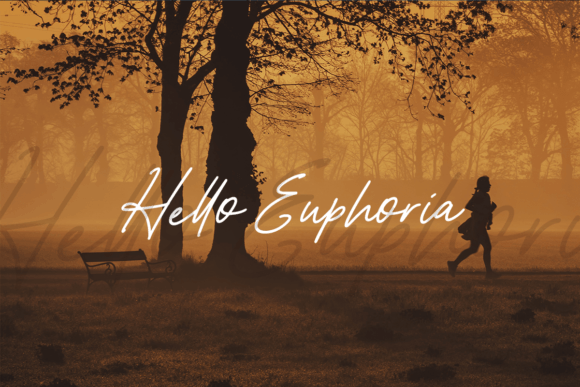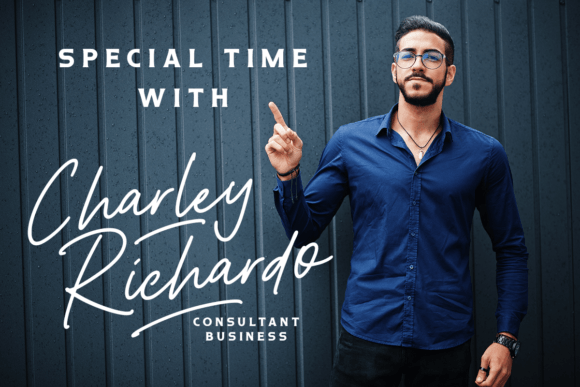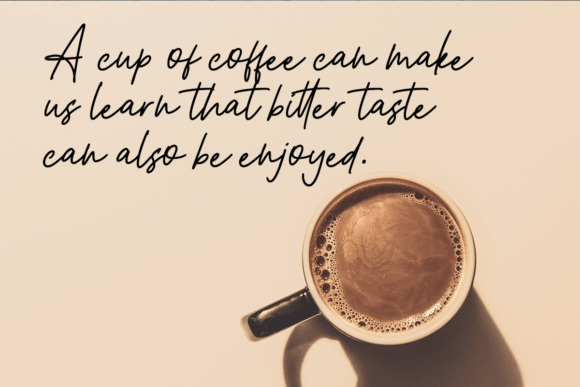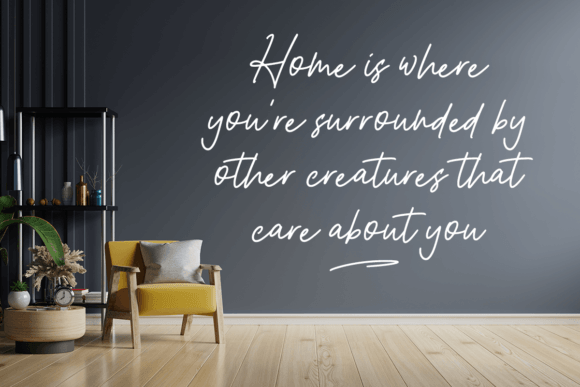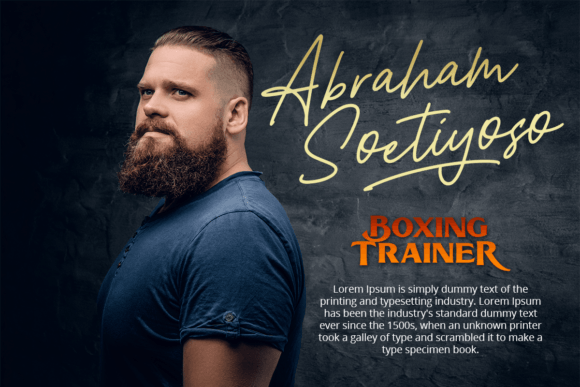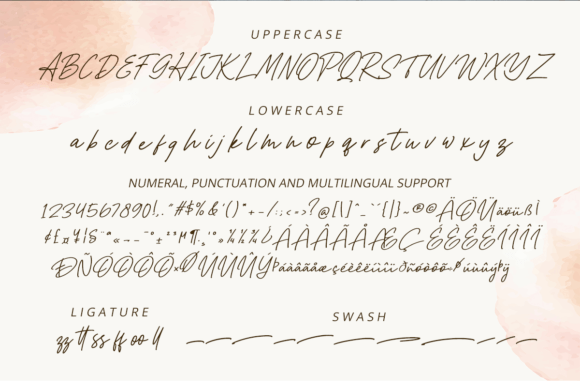
Introducing Allvienta Font: Elevate Your Designs with Elegance and Sophistication
In the world of typography, fonts play a crucial role in transforming a design project from ordinary to extraordinary. Among the numerous fonts available, Allvienta stands out as a stunning, thin, and elegant monoline handwritten font. Its simplicity and beautiful curves make it an ideal choice for designers and crafters seeking to add a touch of modern sophistication to their creations.
The Beauty of Allvienta Font
Allvienta is a masterpiece of typographic design, characterized by its delicate and refined lines. This gorgeous font boasts a unique blend of elegance and simplicity, making it perfect for a wide range of design projects, from luxury branding and packaging to wedding invitations and digital marketing materials.
One of the key features that sets Allvienta apart is its monoline handwritten style. This distinctive approach to typography creates a sense of fluidity and continuity, giving the font a dynamic and organic feel. The result is a visually appealing and harmonious design that effortlessly captures the attention of the viewer.
Why Choose Allvienta Font?
So, what makes Allvienta an attractive choice for designers and crafters? Here are a few compelling reasons:
• Modern and Fancy: Allvienta’s sleek and sophisticated design instantly elevates your project to a modern and high-end level, perfect for luxury brands, fashion designers, and artists.
• Elegant Curves: The font’s beautiful curves and lines create a visually stunning effect, adding a touch of elegance and refinement to your design.
• Versatile: Allvienta is suitable for a wide range of design projects, including logos, branding, packaging, posters, and digital marketing materials.
• Easy to Read: Despite its delicate nature, Allvienta remains highly legible, ensuring that your message is conveyed clearly and effectively.
How to Use Allvienta Font in Your Designs
Allvienta is an incredibly versatile font that can be used in various design contexts. Here are some ideas to get you started:
• Branding and Logo Design: Use Allvienta to create a sophisticated and memorable logo that reflects your brand’s values and personality.
• Wedding and Event Design: Add a touch of elegance to your wedding invitations, programs, and other event materials with Allvienta’s beautiful and refined lines.
• Packaging Design: Elevate your product packaging with Allvienta’s modern and luxurious feel, perfect for high-end products and premium brands.
• Digital Marketing: Use Allvienta in your digital marketing materials, such as social media graphics, email newsletters, and website headers, to create a cohesive and sophisticated brand image.
Tips for Pairing Allvienta Font with Other Fonts
To create a harmonious and visually appealing design, it’s essential to pair Allvienta with complementary fonts. Here are some tips to help you choose the perfect font combinations:
• Contrasting Fonts: Pair Allvienta with bold and geometric fonts to create a striking contrast and add visual interest to your design.
• Script Fonts: Combine Allvienta with other script fonts to create a cohesive and elegant design, perfect for luxury brands and wedding designs.
• Serif Fonts: Pair Allvienta with serif fonts to add a touch of sophistication and refinement to your design, ideal for editorial and publishing projects.
Allvienta font is a stunning and elegant monoline handwritten font that can elevate your design projects to new heights. Its simplicity, beautiful curves, and versatility make it an ideal choice for designers and crafters seeking to add a touch of modern sophistication to their creations. With its wide range of applications and easy pairing with other fonts, Allvienta is sure to become a favorite in your design arsenal.